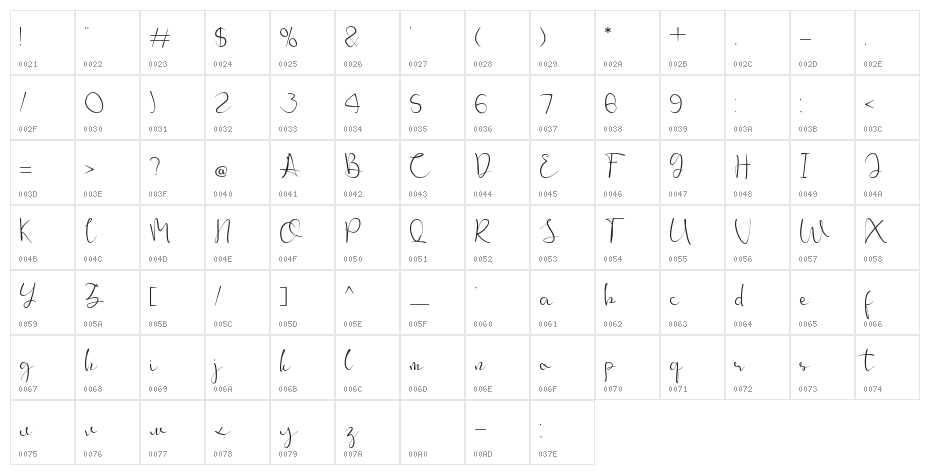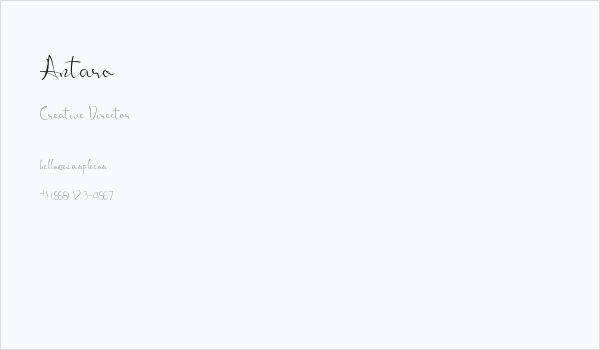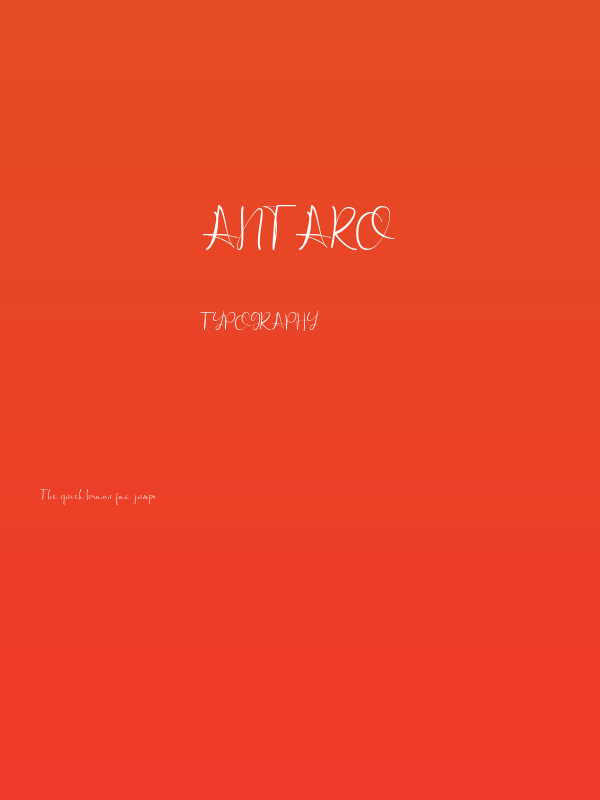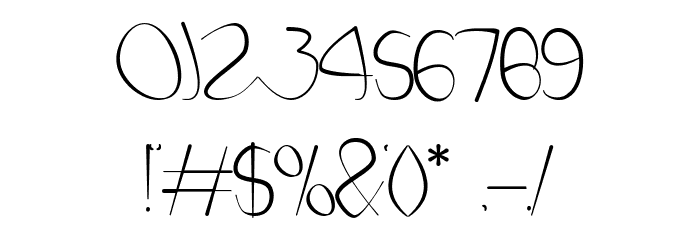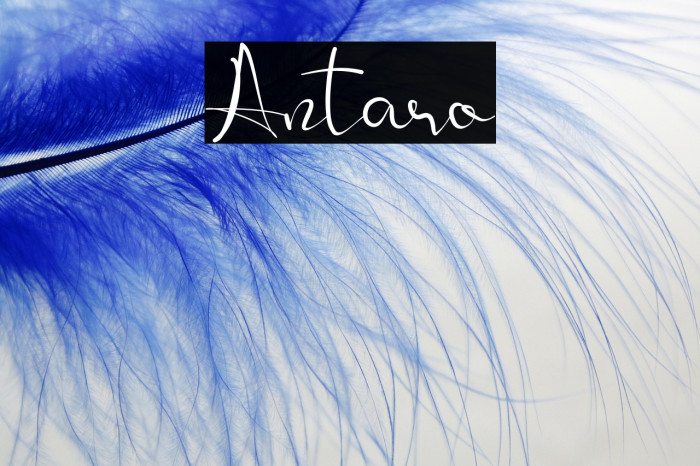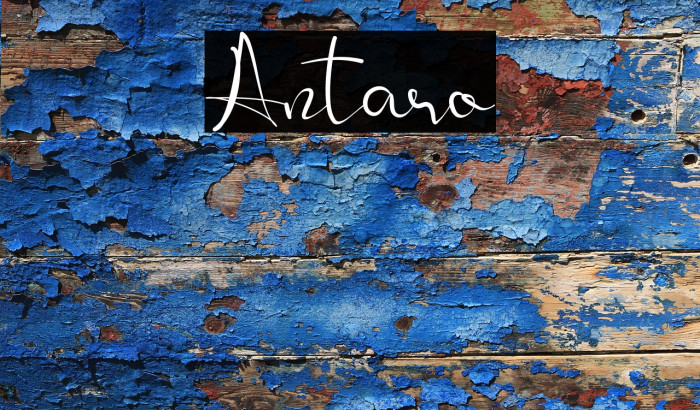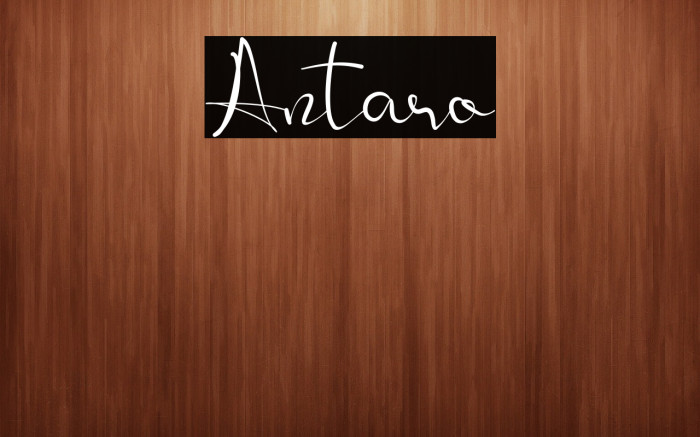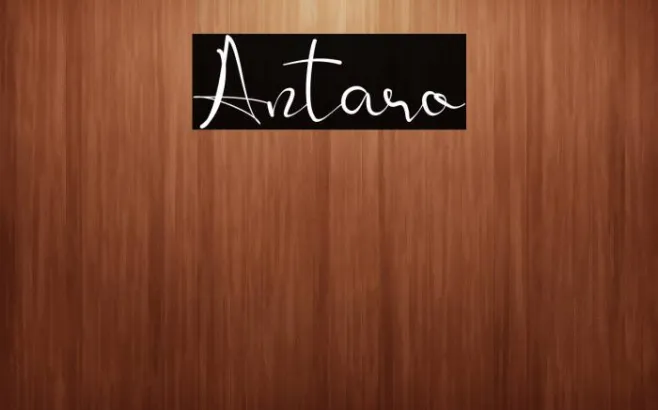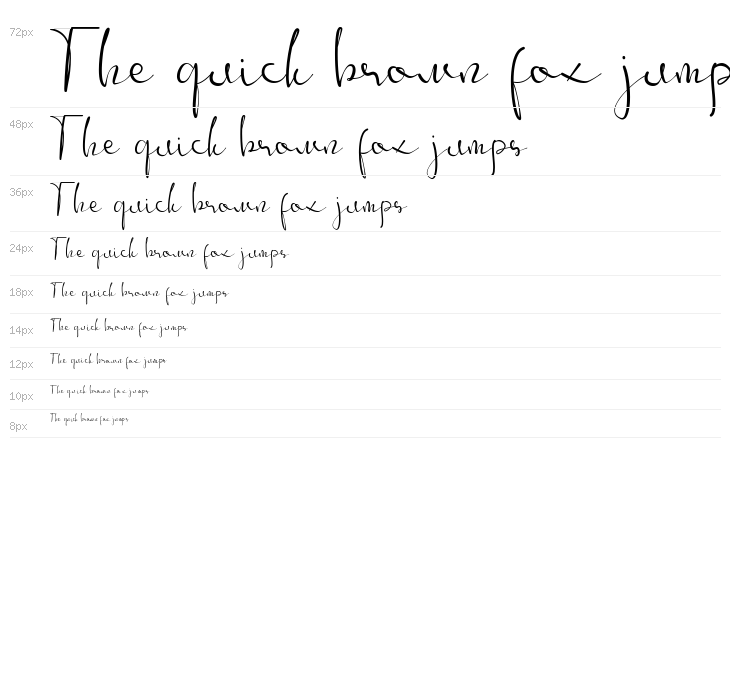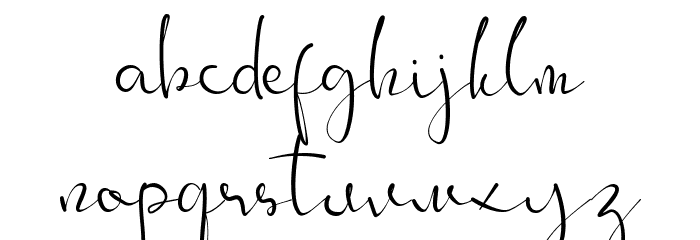
Antaro Font
Antaro Description
This font exudes a playful and artistic flair, characterized by its flowing, cursive style that mimics the fluidity of handwritten script. The letters are elegantly elongated with a whimsical touch, featuring varying stroke widths that add a dynamic and lively feel. The uppercase letters are bold and expressive, while the lowercase letters maintain a consistent, graceful flow. Numbers and special characters are crafted with the same artistic intent, ensuring a cohesive look throughout. This font is perfect for projects that require a personal, creative touch, such as invitations, greeting cards, or artistic branding.